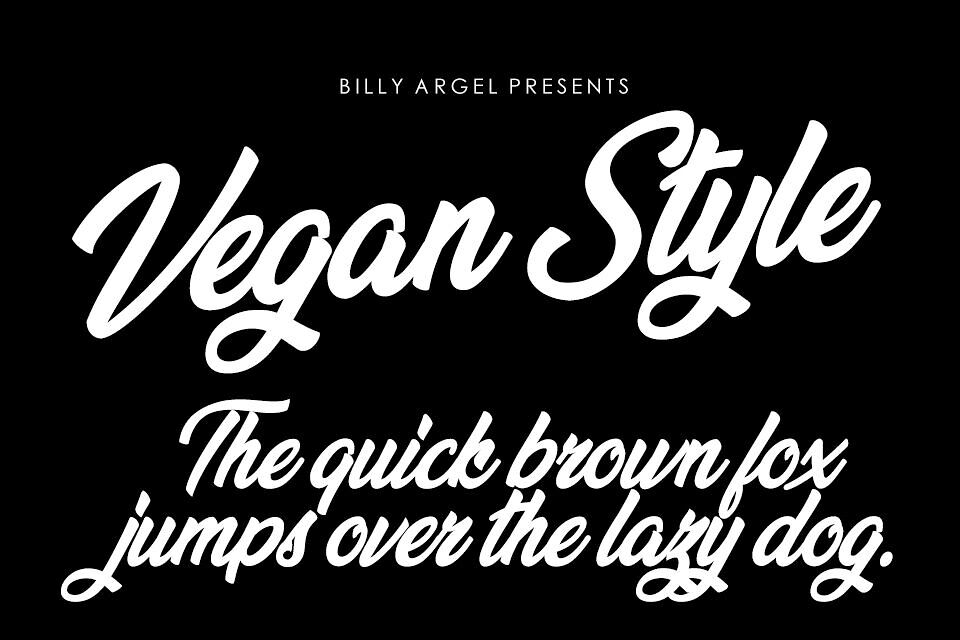
Vegan Style Font
Vegan Style Font is a modern, hand-drawn script typeface with smooth, flowing curves and an organic, friendly character. Its calligraphic design features soft, casual strokes that make it ideal for eco-brand logos, packaging, posters, and lifestyle graphics.
With nearly 300 glyphs in TrueType format, this stylish, handcrafted font adds personality and warmth to creative projects while keeping text readable and engaging. Perfect for artistic headlines and natural-themed designs.